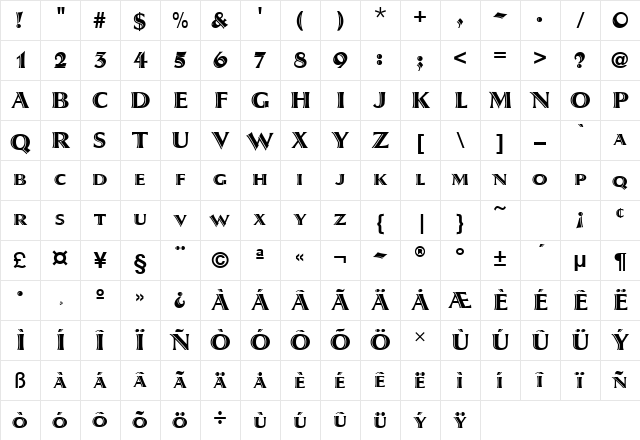
AtraxDReg Regular
Design Context for AtraxDReg
AtraxDReg is a composed and adaptable typeface that performs quietly and consistently across a wide range of design contexts.